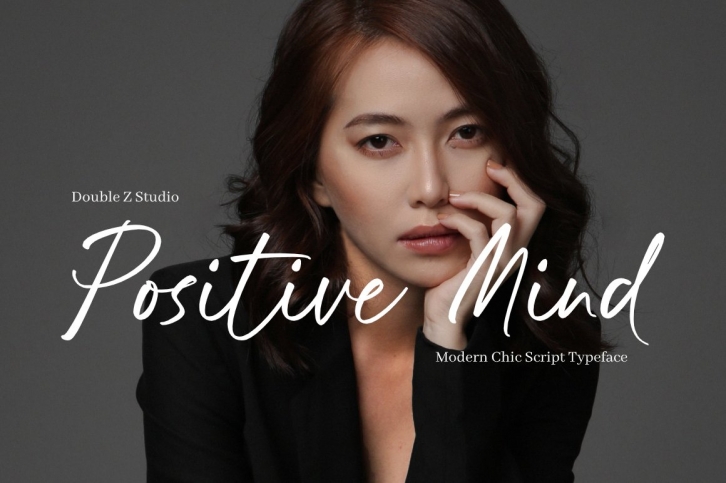
Introducing PositiveMind - a sweet modern chic script typeface. Carefully crafted. Smoothly flowing, perfect for designing blog logo, website logo, print ads, book covers, film covers, apparel, cards, logos, posters, etc.
Opentype features gives you more alternatives in designing.
• Basic Latin A-Z and a-z
• Symbols
• Stylistic Set
• Ligature